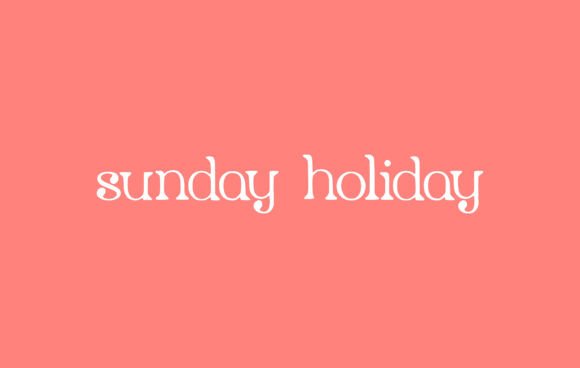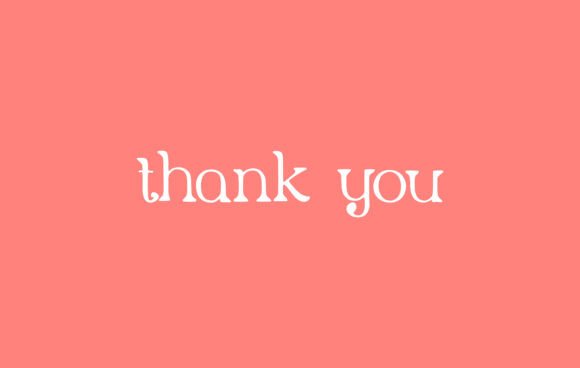
Breezeline Font: Elevate Your Designs with a Romantic Touch
In the world of typography, a well-crafted font can make all the difference in bringing your creative ideas to life. Breezeline font is an authentic handwritten font that exudes a romantic touch, making it an excellent addition to any designer’s toolkit. With its unique blend of elegance and legibility, Breezeline font is poised to become a true favorite among designers and crafters alike.
The Characteristics of Breezeline Font
Breezeline font boasts a distinctive handwritten style that is both refined and approachable. Its romantic undertones evoke a sense of whimsy and sophistication, making it perfect for a wide range of design applications. Whether you’re looking to create eye-catching magazine headlines, engaging social media content, or beautiful wedding invitations, Breezeline font is an excellent choice.
Key Features of Breezeline Font
- Authentic Handwritten Style: Breezeline font features a genuine handwritten look that adds a personal touch to any design.
- Romantic Undertones: The font’s romantic undertones make it perfect for designs that require a touch of elegance and sophistication.
- Legibility: Breezeline font is designed to be highly legible, making it suitable for use as both title and body text.
- Versatility: The font’s versatility makes it an excellent choice for a wide range of design applications, from magazine headlines to social media graphics.
Design Applications for Breezeline Font
Breezeline font is an incredibly versatile font that can be used in a variety of design applications. Here are a few ideas to get you started:
- Magazine Headlines: Use Breezeline font to create eye-catching headlines that grab readers’ attention.
- Social Media Graphics: Add a touch of elegance to your social media graphics with Breezeline font.
- Branding: Use Breezeline font to create a unique and memorable brand identity.
- Wedding Invitations: Add a romantic touch to your wedding invitations with Breezeline font.
- Cards and Stationery: Use Breezeline font to create beautiful cards and stationery that make a lasting impression.
Why Choose Breezeline Font?
With so many fonts available, why choose Breezeline font? Here are a few reasons why Breezeline font stands out from the crowd:
- Unique Style: Breezeline font features a unique and distinctive style that sets it apart from other fonts.
- Ease of Use: The font is highly legible and easy to use, making it perfect for designers of all skill levels.
- Romantic Touch: Breezeline font’s romantic undertones make it perfect for designs that require a touch of elegance and sophistication.
In conclusion, Breezeline font is an exceptional handwritten font that offers a romantic touch and unparalleled legibility. Its versatility and unique style make it an excellent choice for a wide range of design applications, from magazine headlines to wedding invitations. Whether you’re a designer or crafter, Breezeline font is sure to become a favorite in your toolkit.